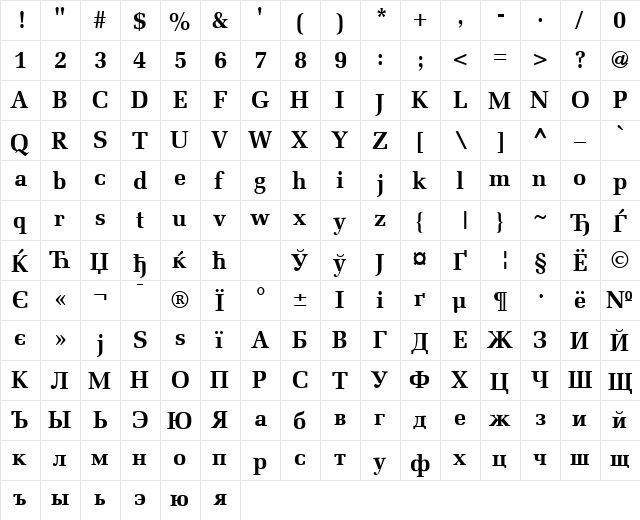
AGMelanie Bold
Design Context for AGMelanie Typeface
AGMelanie is a composed and adaptable typeface that performs quietly and consistently across a wide range of design contexts. The heavy weight commands attention and anchors typographic hierarchies.